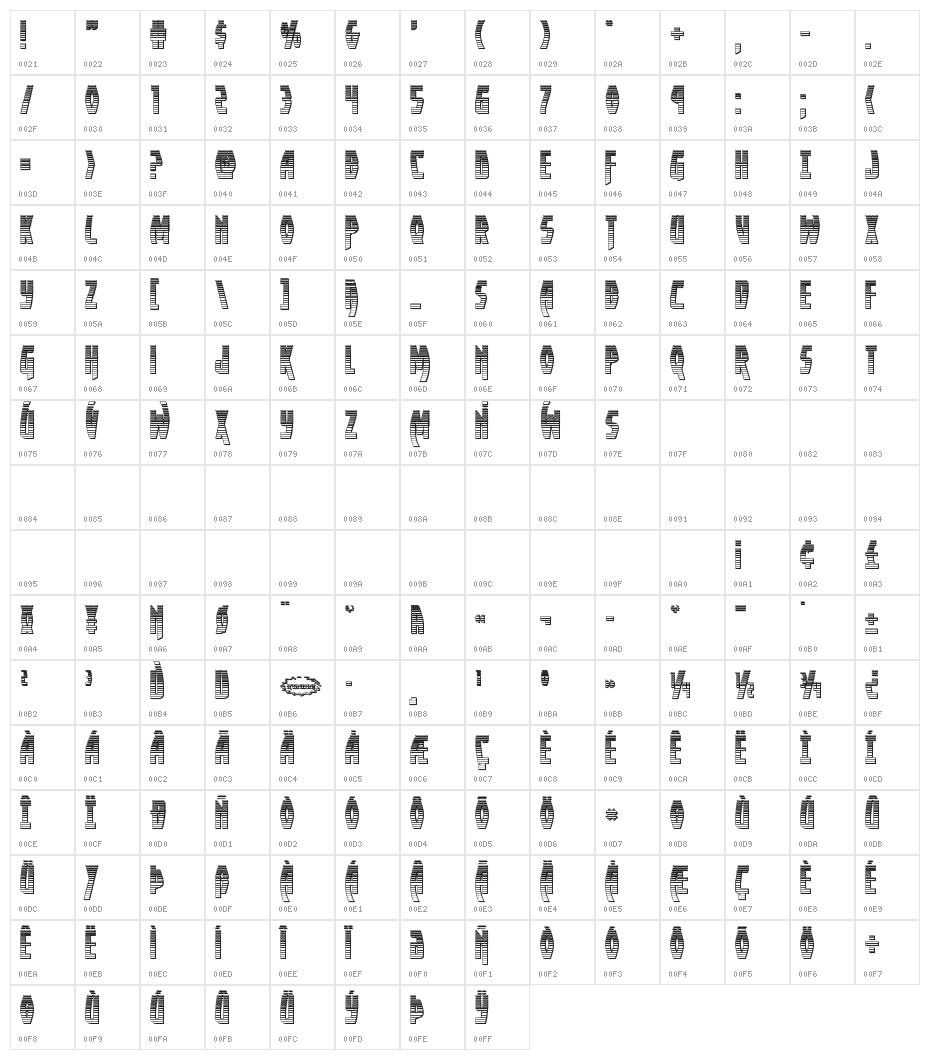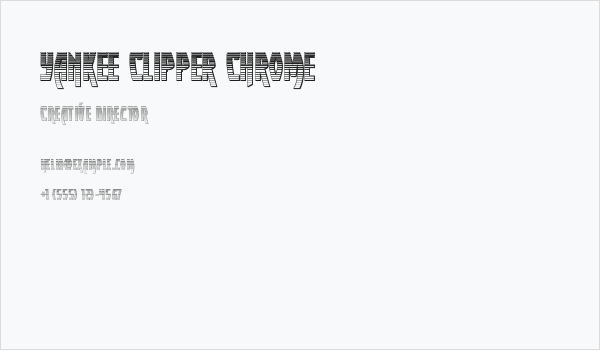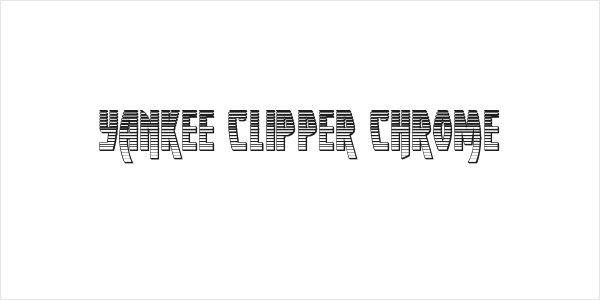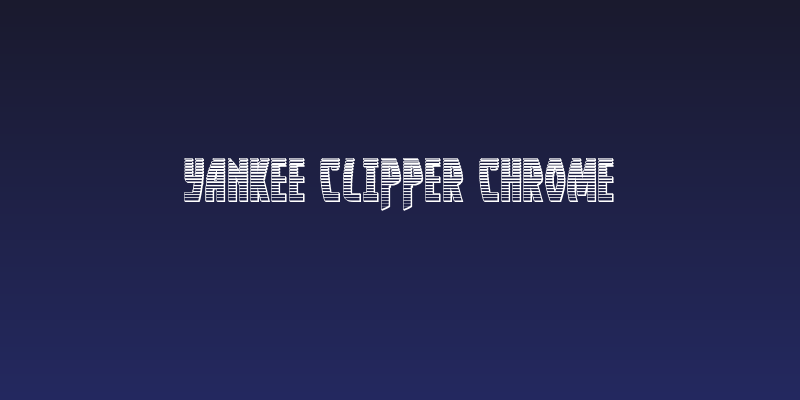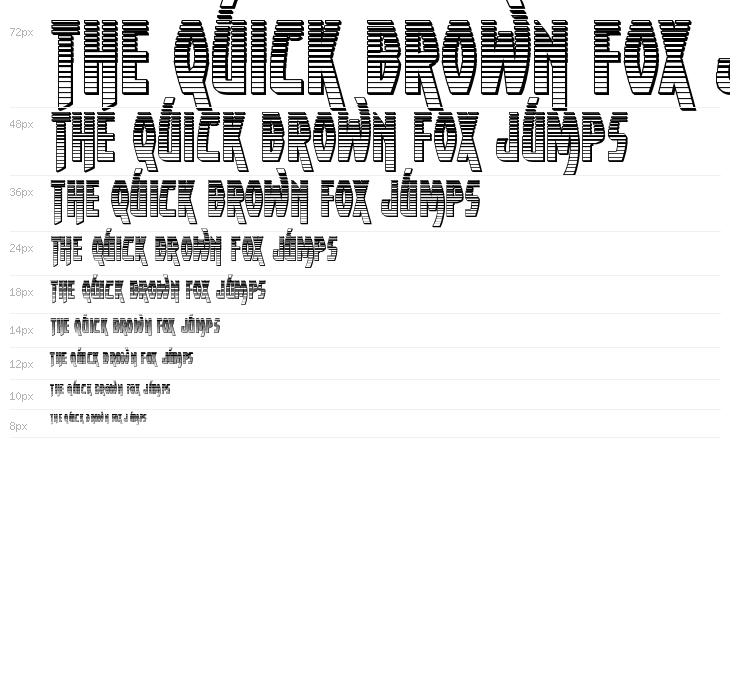
Yankee Clipper Chrome Font
Yankee Clipper Chrome Description
This font features a bold and striking design with a three-dimensional effect created by horizontal stripes and shadowing. Each character is constructed with a series of parallel lines that give it a unique, layered appearance. The uppercase and lowercase letters maintain a consistent style, with angular edges and a futuristic feel. The numbers and special characters follow the same design principles, ensuring uniformity across all glyphs. This font's distinct look makes it ideal for eye-catching designs.
| Proposed Projects | Ideal for posters, logos, and branding projects that require a bold and modern aesthetic. |